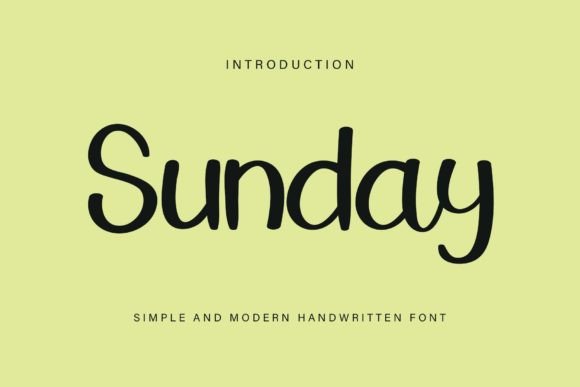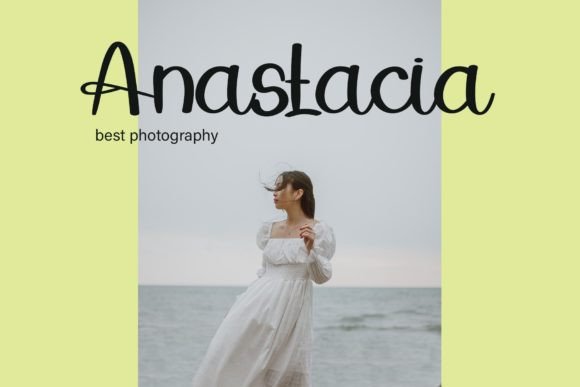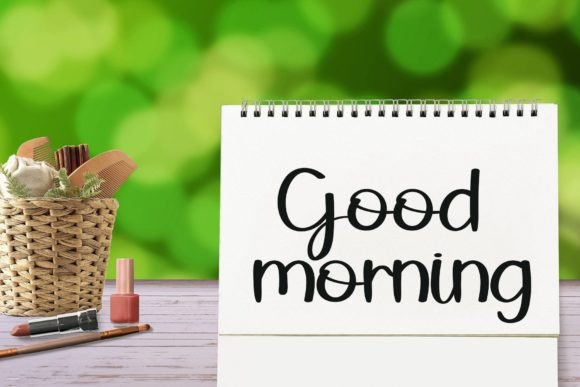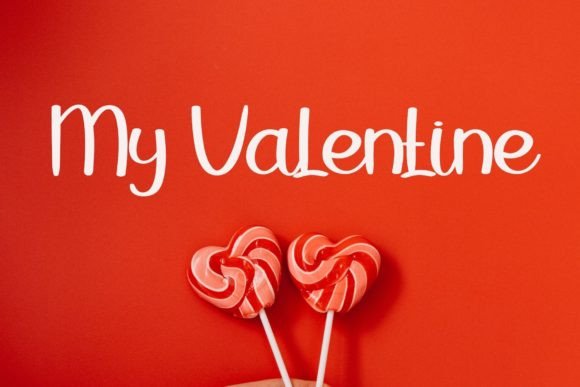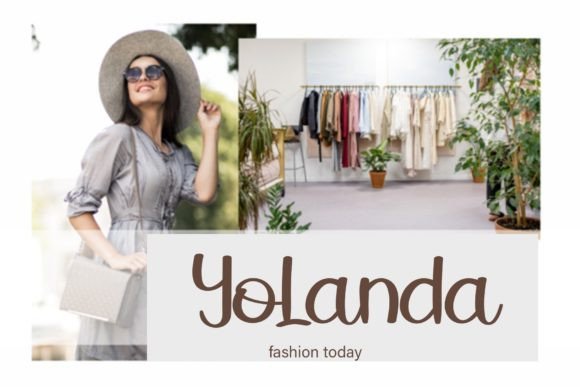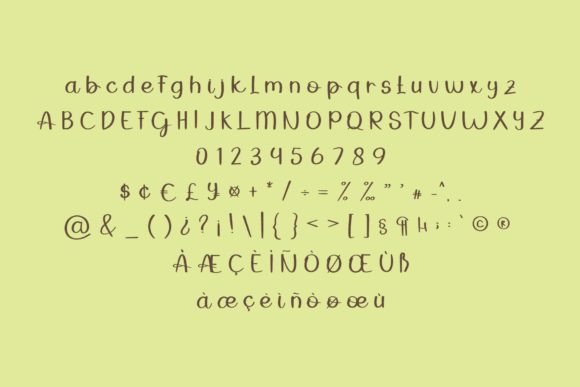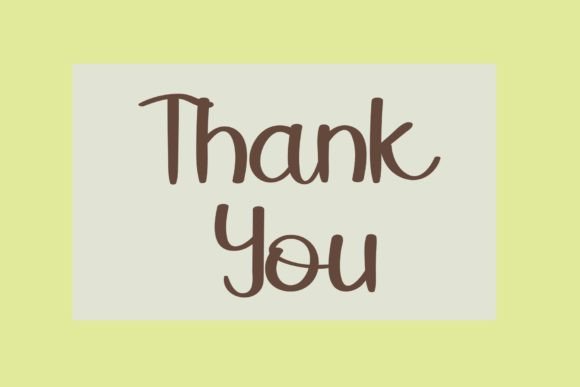
Sunday Font
About Sunday Font
**Introducing Sunday: A Sweet and Beautiful Handwritten Font**
Step into the world of elegance and charm with Sunday, a handwritten font that embodies sweetness and beauty. With characters that gracefully dance along the baseline, Sunday is more than a typeface—it’s an enchanting addition to any design project, promising to infuse a luxurious spark into your creative endeavors.
**Graceful Dance Along the Baseline:**
Sunday distinguishes itself with the captivating dance of its characters along the baseline. This unique feature injects a sense of fluidity and motion into the font, creating an enchanting rhythm that brings life to every word. The letters become dancers, choreographed with precision, contributing to a dynamic and visually pleasing aesthetic.
**Sweetness and Beauty in Every Stroke:**
At the heart of Sunday lies an inherent sweetness that radiates from every stroke. The handwritten nature of the font imparts a warm and personal touch, making each character feel like a carefully crafted expression of care and affection. This sweetness not only enhances the visual appeal but also adds a layer of delightful charm to the words it forms.
**Handwritten Elegance:**
Sunday exudes elegance through its beautifully crafted script. Each curve and line is meticulously designed, creating a seamless flow that captures the eye. The handwritten elegance goes beyond aesthetics; it’s a design choice that communicates sophistication and creativity, making Sunday a versatile choice for a range of design projects.
**Luxurious Spark for Your Designs:**
Sunday brings a touch of luxury to your design projects. Whether you’re working on invitations, branding materials, or any creative endeavor, this font elevates the overall experience. It’s not just a tool for communication; it’s a visual asset that imparts a sense of opulence, making a bold statement of refinement and style.
**Versatility for Creative Expression:**
Despite its luxurious qualities, Sunday is remarkably versatile. It seamlessly adapts to diverse design needs, making it suitable for various themes and styles. From romantic wedding invitations to sleek corporate materials, Sunday integrates effortlessly, ensuring that your message is not just conveyed but done so with a touch of finesse and luxury.
**Conclusion: Elevate Your Designs with Sunday’s Charm**
In conclusion, Sunday is an invitation to elevate your designs with its inherent charm and sophistication. This sweet and beautiful handwritten font, with its dancing characters and luxurious spark, transforms your creative vision into a visual masterpiece. Let Sunday be the enchanting addition to your projects, turning them into captivating works of art. Embrace the sweetness, celebrate the beauty, and let Sunday be the spark that sets your designs apart in style and elegance.